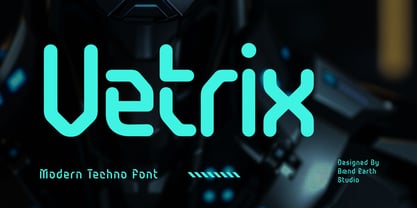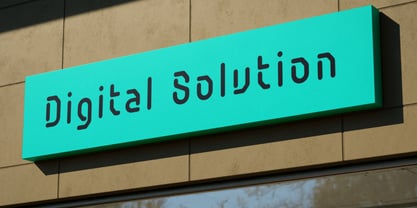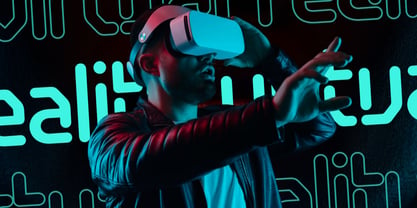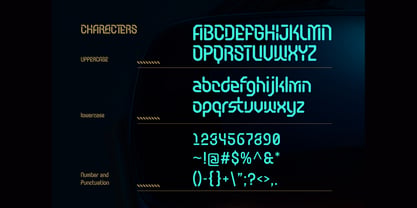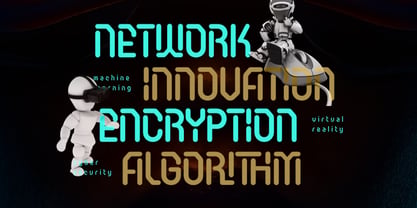
Vetrix
by Brandearth
The Vetrix Font Family was designed by Moch Rasjid Wiyono and published by Brandearth. Vetrix contains 1 styles. More about this family
Vetrix is a modern techno display font inspired by futuristic interfaces, robotics, and digital innovation. Featuring rounded geometric strokes, smooth terminals, and modular letter construction, this typeface delivers a sleek sci-fi atmosphere while maintaining strong legibility. Vetrix is highly relevant for projects centered around technology, robotics, artificial intelligence, gaming, startups, and digital innovation. It is ideal for tech company branding, esports visuals, YouTube thumbnails, app interfaces, product launches, futuristic posters, album covers, NFT projects, sci-fi movie titles, and modern advertising campaigns that require a sleek, high-impact technological identity.
Designers: Moch Rasjid Wiyono
Foundry: Brandearth